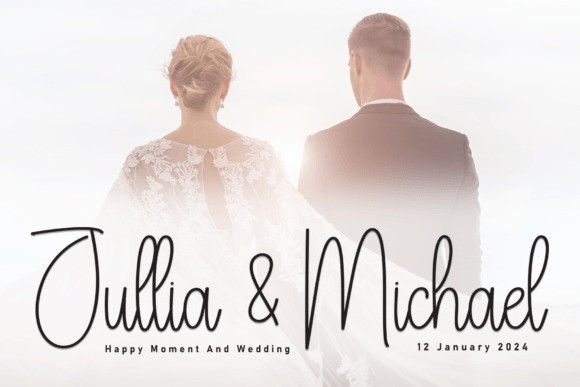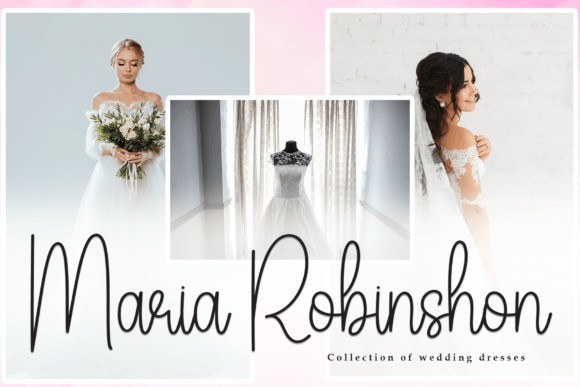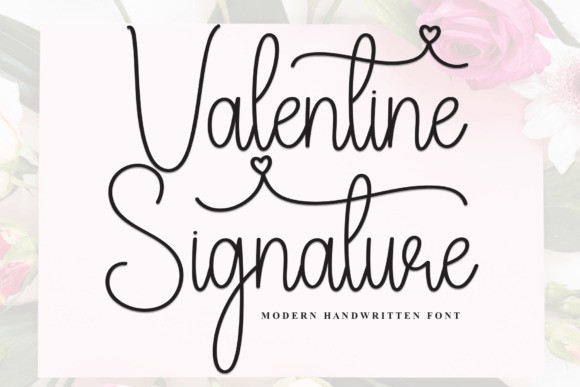
Valentine Signature Handwriting Font
Valentine Signature Handwriting Font is a trendy and modern font designed to emulate the beauty of a personalized signature. With sleek lines and a contemporary touch, this font adds a stylish flair to your projects. Ideal for giving a sophisticated yet personal feel to invitations, cards, and branding materials, Valentine Signature effortlessly elevates your design. Make your text stand out with this chic and versatile font, perfect for expressing your unique style subtly and elegantly.